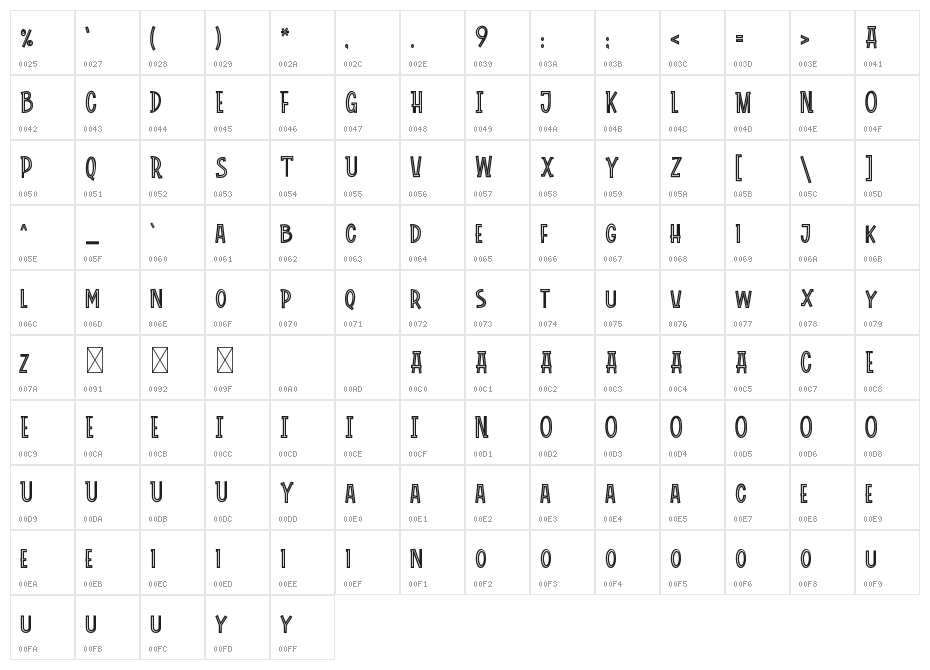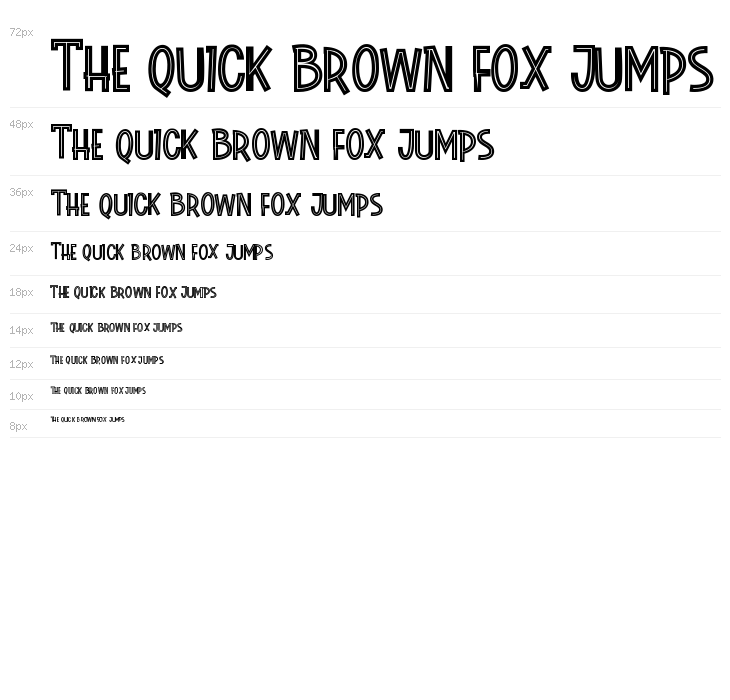
Roadkey Line Font
Roadkey Line Description
This font features a bold, decorative style with a distinct outline that gives each character a three-dimensional effect. The uppercase letters are designed with a playful, slightly retro aesthetic, making them stand out with their thick strokes and unique shapes. The numbers and special characters maintain this bold, outlined style, ensuring consistency across all glyphs. The font's design is eye-catching and ideal for projects that require a strong visual impact.
| Overall Style | Retro, Decorative |
| Proposed Projects | Ideal for posters, headlines, branding, and any design project that requires a bold, eye-catching typeface. |